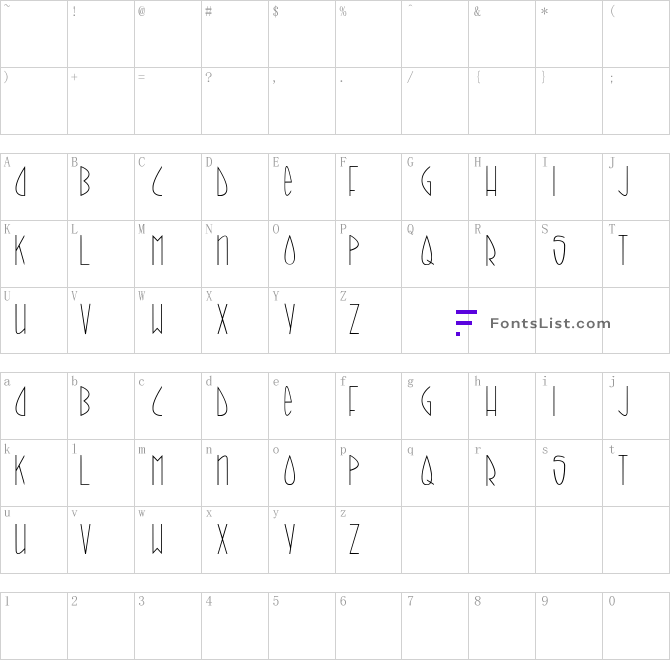
- Font Name:call it skinny
call-it-skinny.ttf is a very beautiful artistic font, call-it-skinny.ttf is widely used in the design and printing of various books and pictures,call-it-skinny.ttf has a strong visual impact,call-it-skinny.ttf is a commonly used font in newspapers, magazines and books, and is used in posters, e-commerce Poster design, store design, logo design, font design and other fields.call-it-skinny.